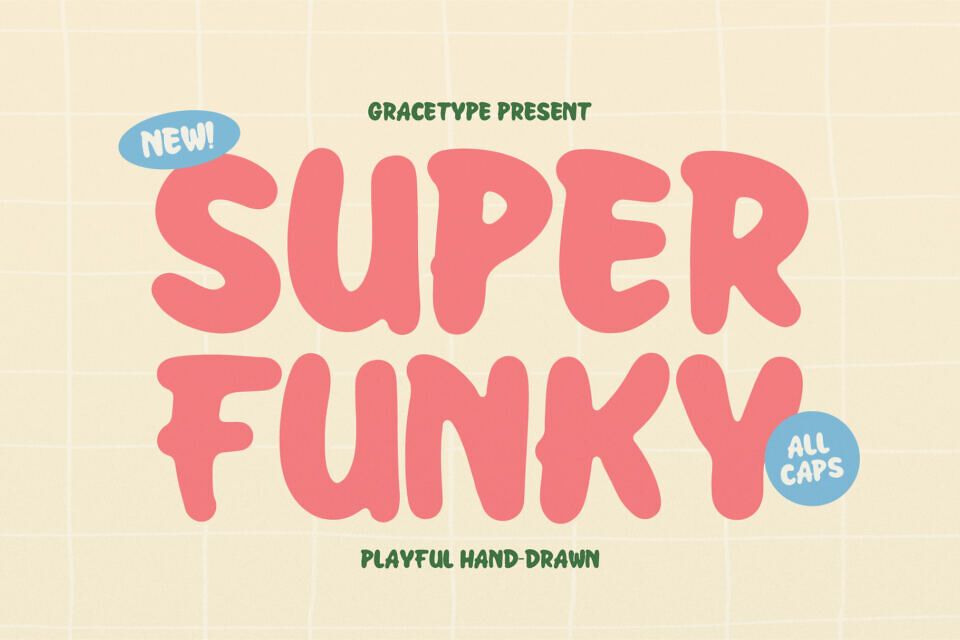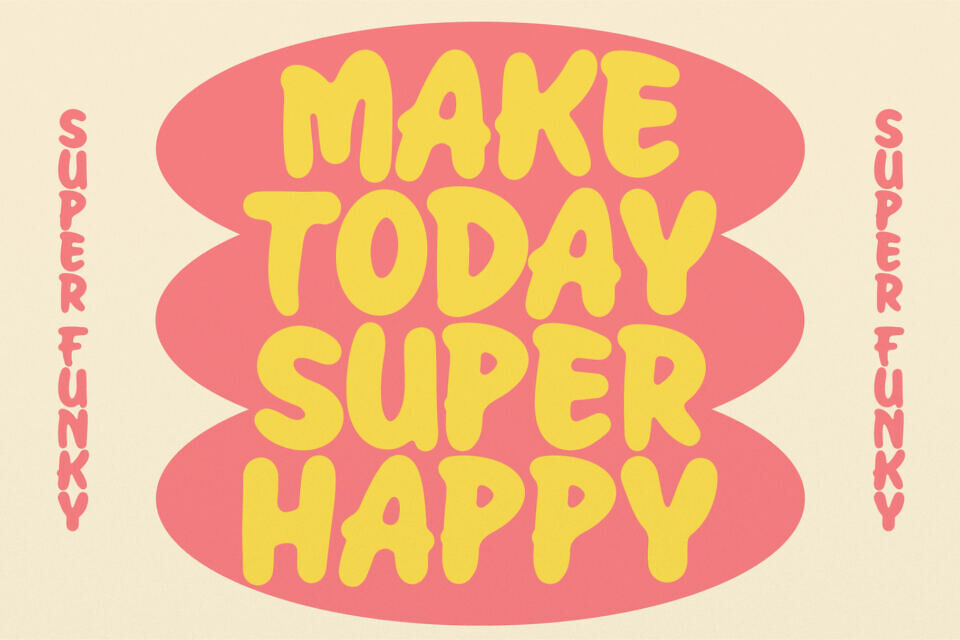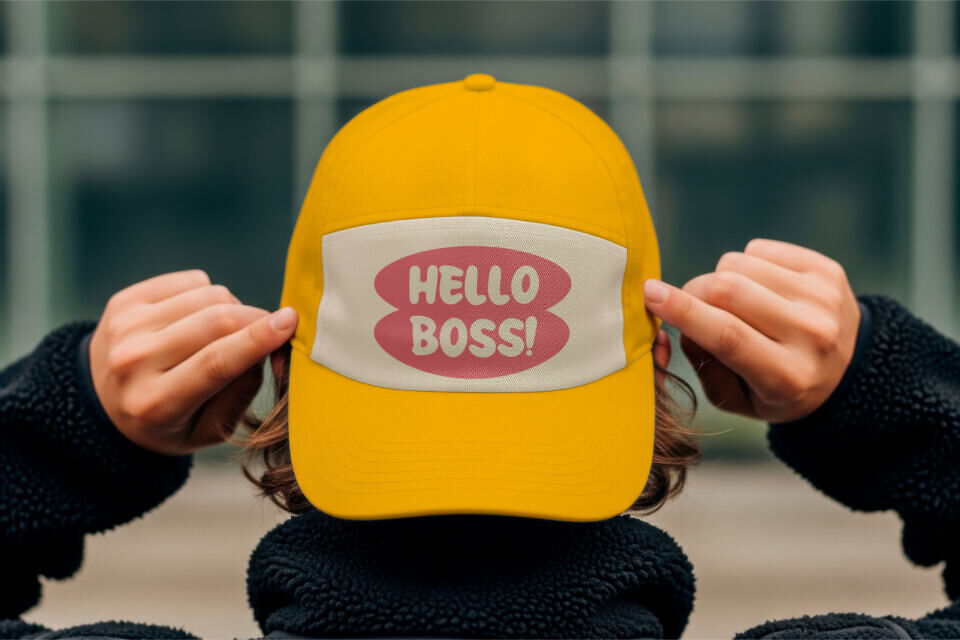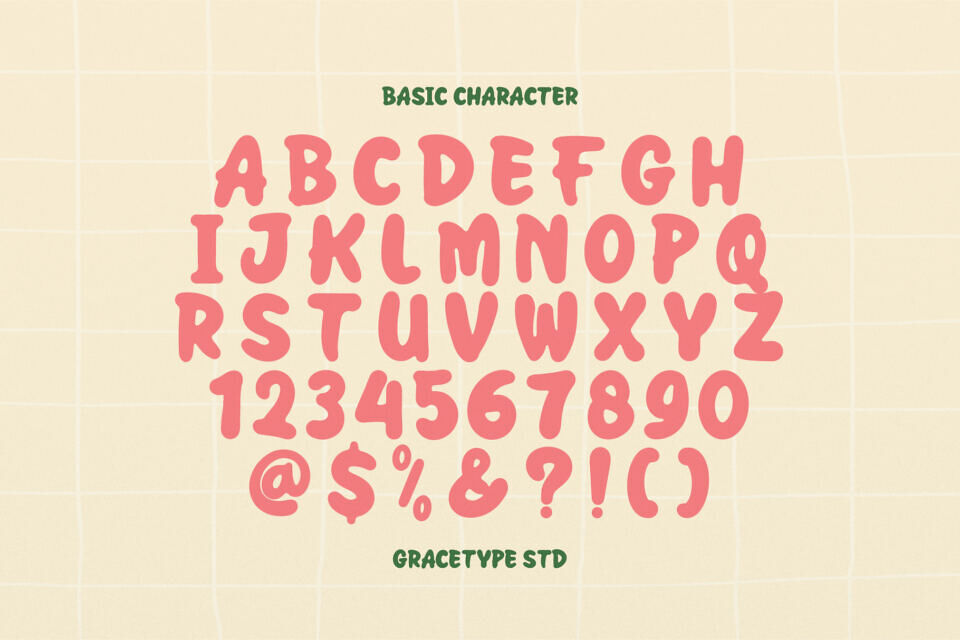
Super Funky Font
Add a dash of retro flair with Super Funky, a vibrant display font. Its bold, rounded letters feature soft curves and irregular edges, blending 1970s nostalgia with modern style. Perfect for indie brands, Super Funky’s playful vibe makes it ideal for stickers, packaging, streetwear graphics, and social media headlines, evoking a fun and carefree attitude.